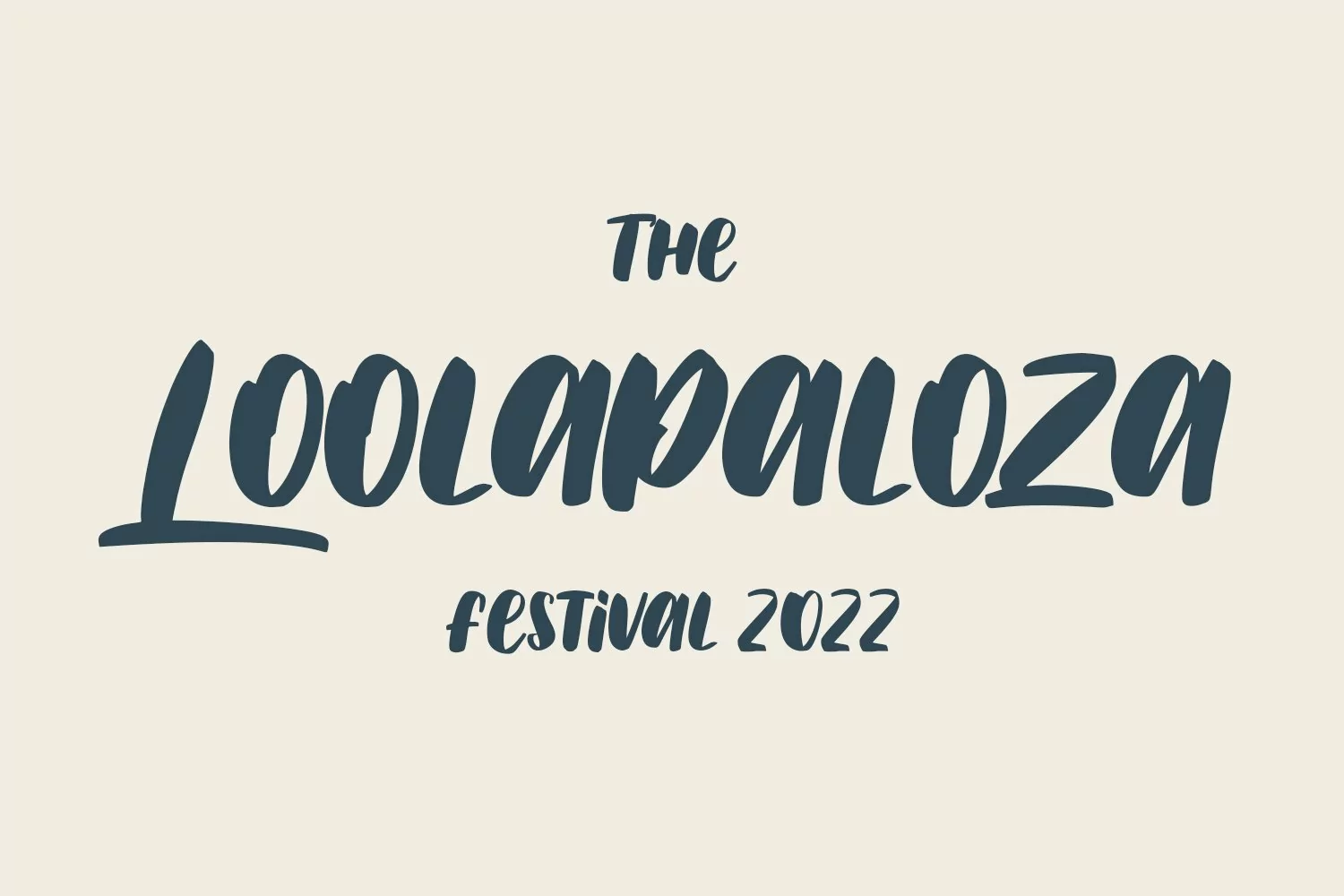
Railstone is a quirky handwritten font. With sharp bold stroke, slanted, tight spacing and fun character with a bit of ligatures and Capital "R" & "L" alternates. To give you an extra creative work. Railstone font support multilingual more than 100+ language. This font is good for logo design, Social media, Movie Titles, Books Titles, a short text even a long text letter and good for your secondary text font with sans or serif. Make a stunning work with Railstone font.